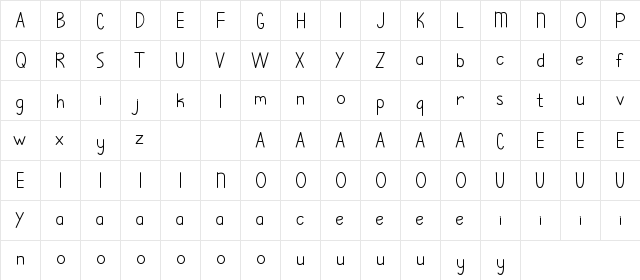
Sandwell DEMO Sans Regular
| Foundry | edric studio |
| Designer | Saila - Fahri F F |
Design Context for Sandwell DEMO Sans Typeface
Sandwell DEMO Sans offers clean, dependable letterforms without strong stylistic allegiance, making it a practical choice for designers who need flexibility.